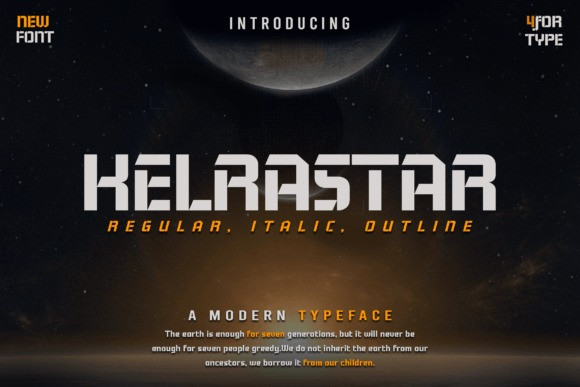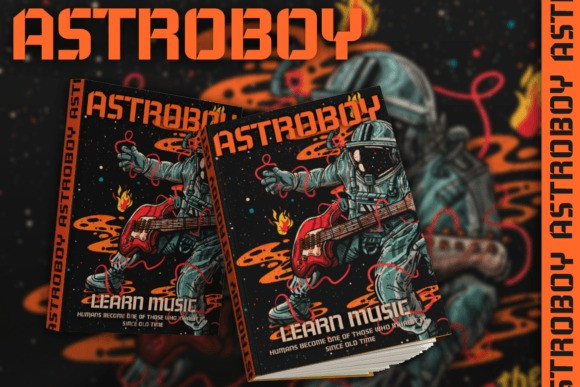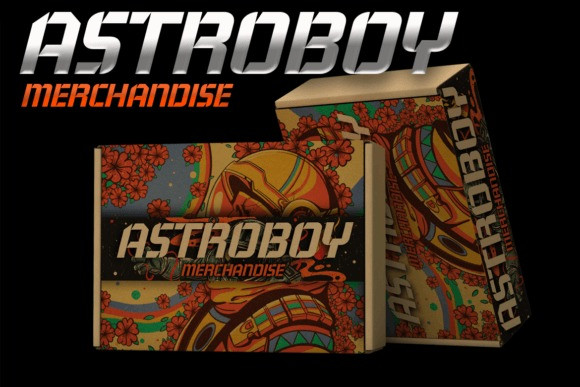
Kelrastar Font
Kelrastar is a cool and modern sans serif display font. Its fresh, futuristic look is perfect for enhancing all your projects. This font is PUA encoded which means you can access all the glyphs and swashes with ease!